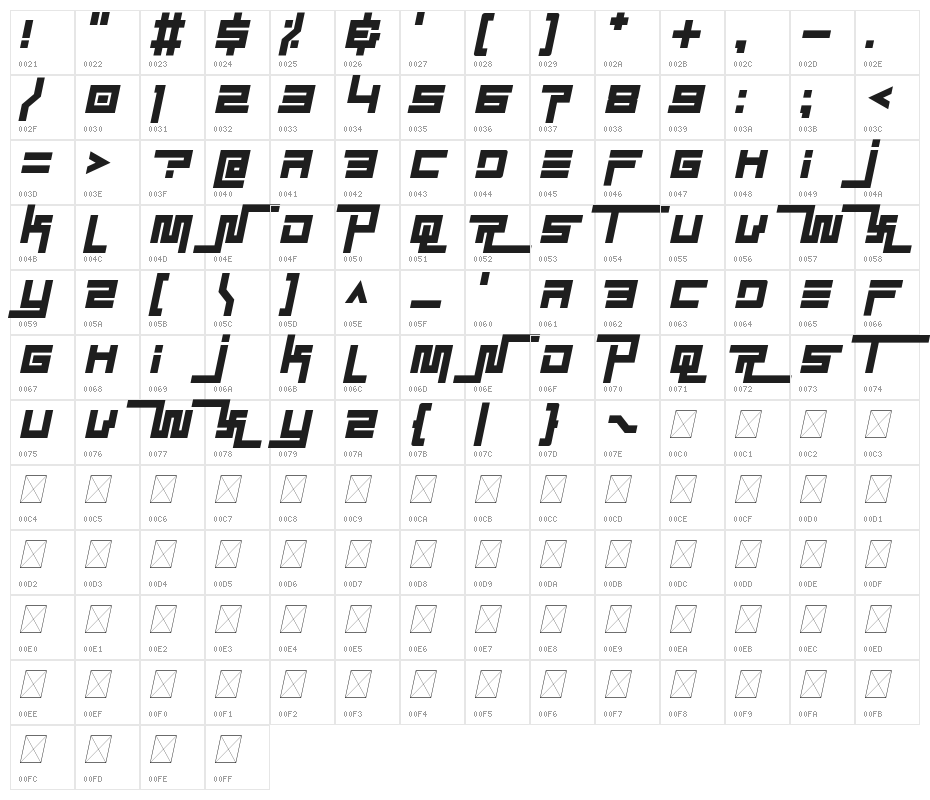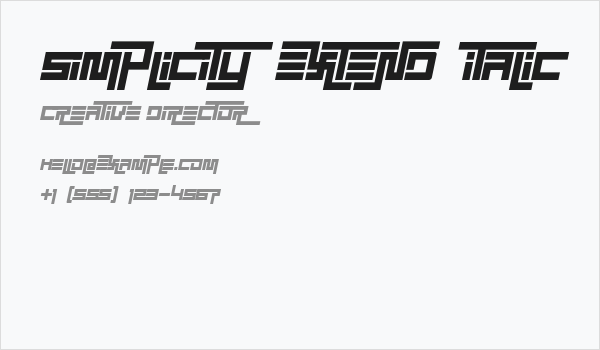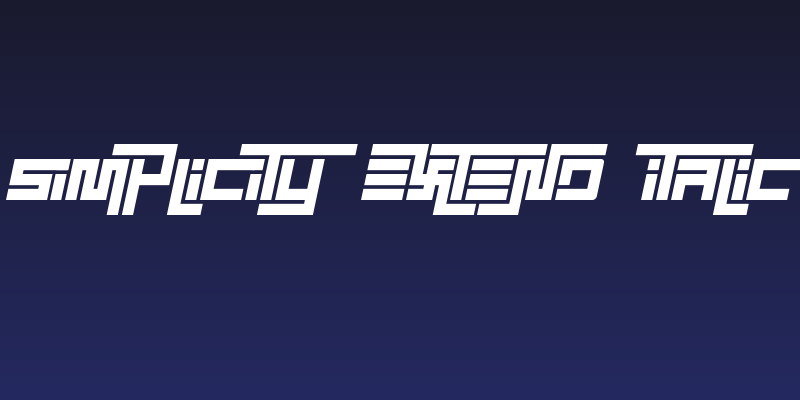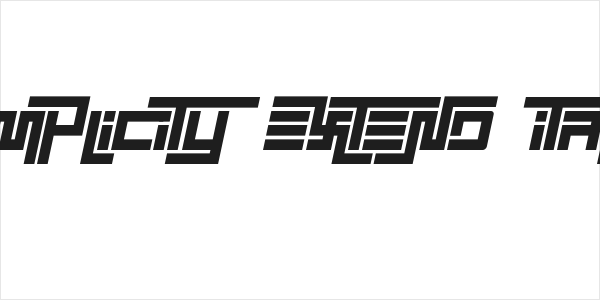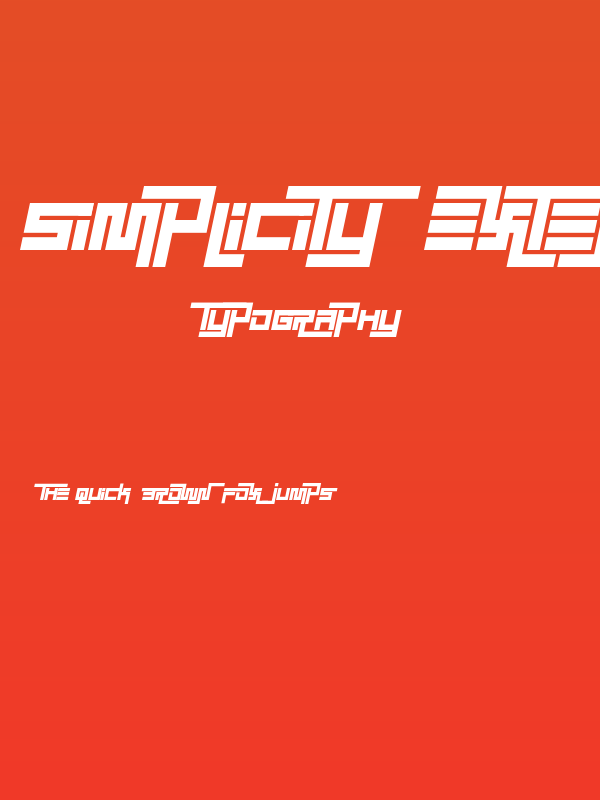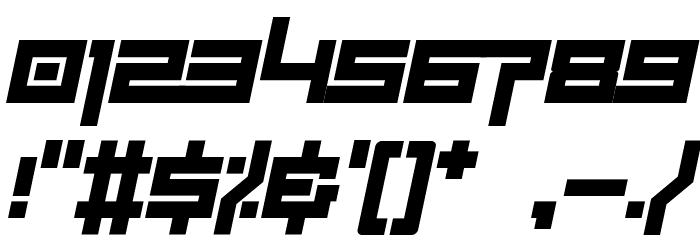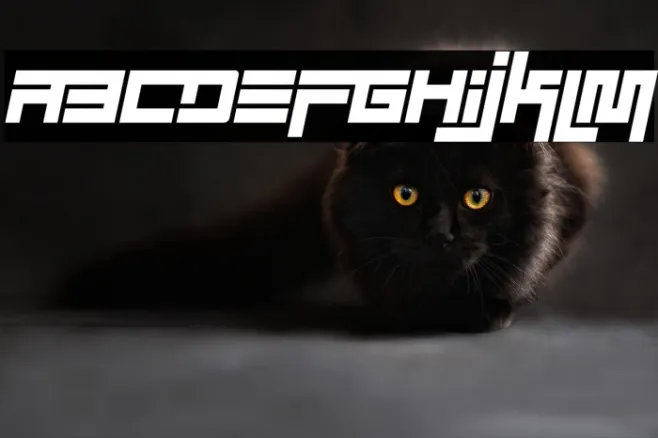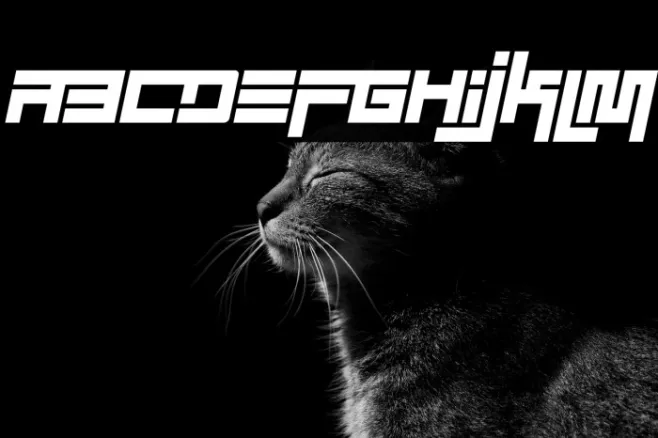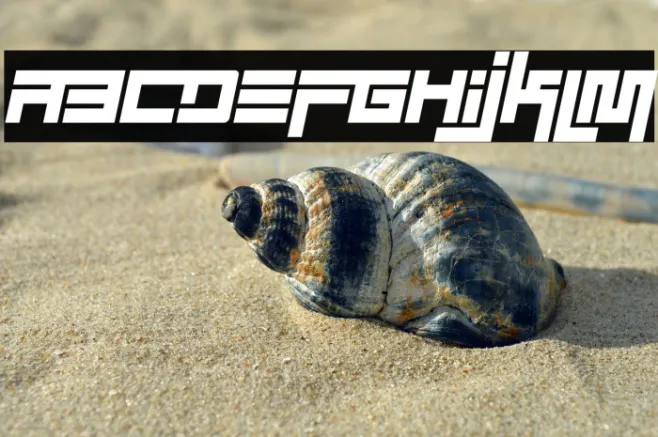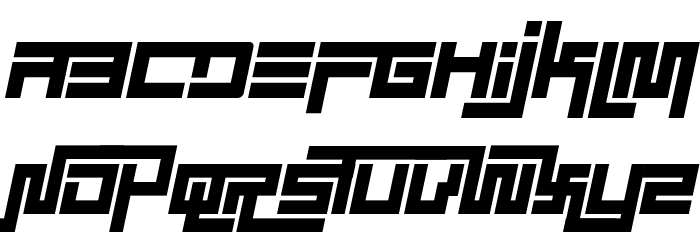
Simplicity Extend Italic Font
Simplicity Extend Italic Description
This font features a bold, geometric style with a futuristic and angular appearance. The characters are sharply defined with consistent stroke widths, giving a strong and impactful presence. The italic slant adds a dynamic and forward-moving feel, enhancing its modern aesthetic. The uppercase and lowercase letters maintain a uniform height, contributing to a cohesive look. Numbers and special characters are designed with the same angular precision, ensuring visual harmony across all elements. This font's unique style makes it suitable for projects requiring a bold and modern touch.
| Proposed Projects | Ideal for technology branding, sci-fi posters, video game titles, and modern advertising. |